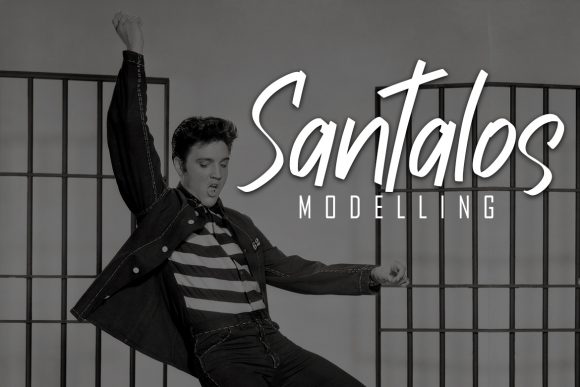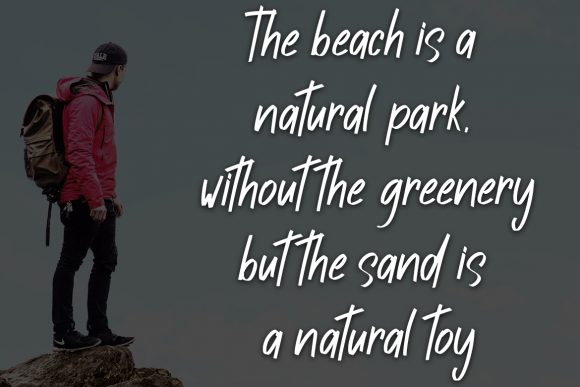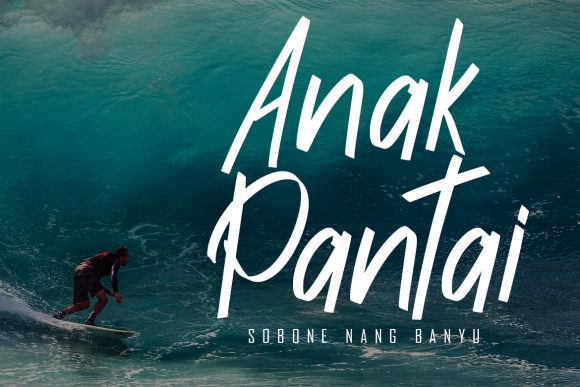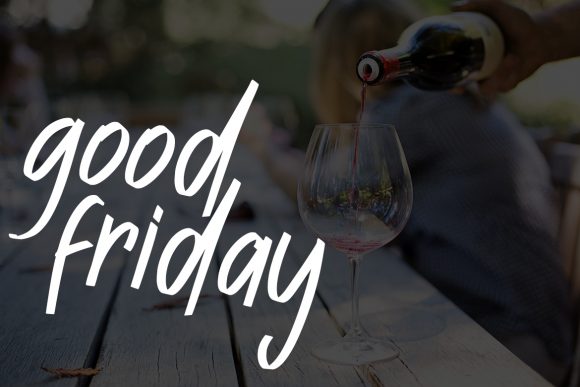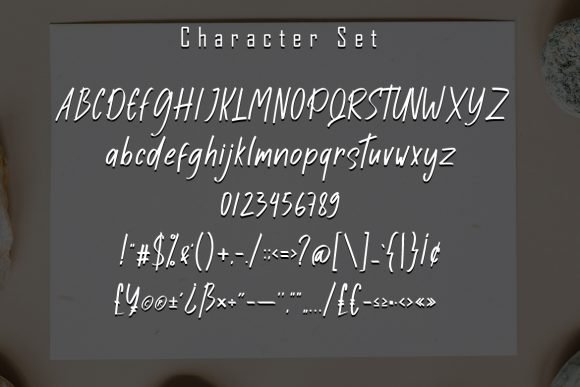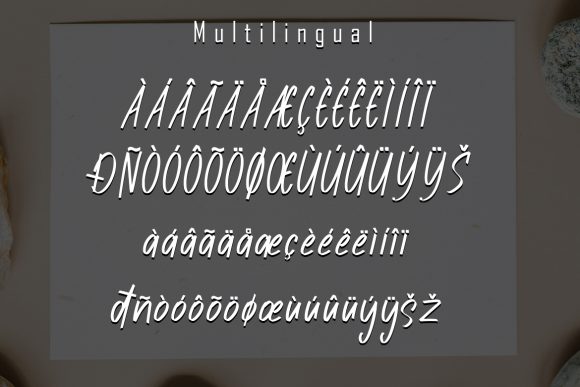
Ayesha Font: The Ultimate Urban, Cool, and Modern Handwritten Font
Are you a designer or crafter looking for a font that can elevate your creative projects to the next level? Look no further than Ayesha Font, a stunning brushed handwritten font that exudes an urban, cool, and modern vibe. With its unique and stylish design, Ayesha Font is perfect for a wide range of applications, from logos and branding to invitations, stationery, wedding designs, social media posts, and more!
What Makes Ayesha Font So Special?
Ayesha Font is a one-of-a-kind brushed handwritten font that boasts a distinctive urban, cool, and modern look. Its carefully crafted design features subtle imperfections and variations that give it a human touch, making it perfect for creative projects that require a personal and authentic feel. Whether you’re designing a logo, creating a social media post, or crafting a wedding invitation, Ayesha Font is sure to make your project stand out from the crowd.
Key Features of Ayesha Font
- Urban, Cool, and Modern Design: Ayesha Font features a stylish and contemporary design that’s perfect for creative projects that require a modern and trendy look.
- Brushed Handwritten Style: The font’s brushed handwritten style gives it a unique and authentic feel that’s perfect for adding a personal touch to your designs.
- Highly Versatile: Ayesha Font can be used for a wide range of applications, from logos and branding to invitations, stationery, wedding designs, social media posts, and more.
- Easy to Read: Despite its artistic and creative design, Ayesha Font is highly legible and easy to read, making it perfect for body text and captions.
Uses of Ayesha Font
Ayesha Font is an incredibly versatile font that can be used for a wide range of creative projects. Here are some ideas to get you started:
- Logos and Branding: Use Ayesha Font to create a unique and memorable logo that reflects your brand’s personality and style.
- Invitations and Stationery: Add a touch of elegance and sophistication to your invitations, greeting cards, and stationery with Ayesha Font.
- Wedding Designs: Make your wedding designs truly special with Ayesha Font, perfect for wedding invitations, programs, and decorations.
- Social Media Posts: Elevate your social media posts with Ayesha Font, perfect for creating eye-catching graphics and captions.
- Packaging and Product Design: Use Ayesha Font to add a personal touch to your product packaging and design.
Tips for Using Ayesha Font
To get the most out of Ayesha Font, here are some tips to keep in mind:
- Experiment with Colors: Ayesha Font looks great in a variety of colors, so don’t be afraid to experiment and find the perfect hue for your design.
- Mix and Match with Other Fonts: Ayesha Font pairs well with a range of other fonts, so try mixing and matching to create a unique and interesting design.
- Pay Attention to Kerning and Spacing: To ensure your text looks its best, make sure to adjust the kerning and spacing to suit your design.